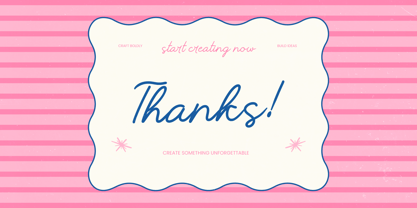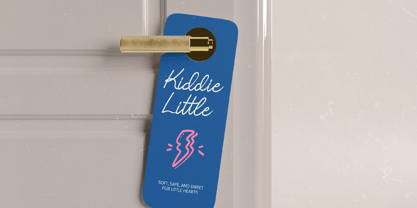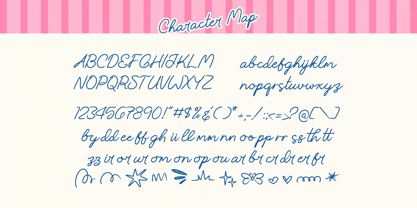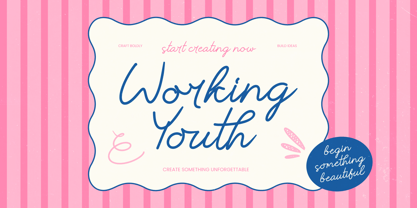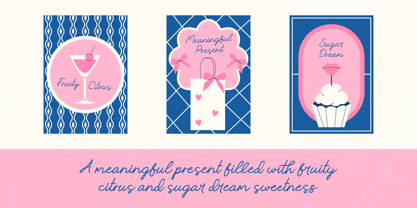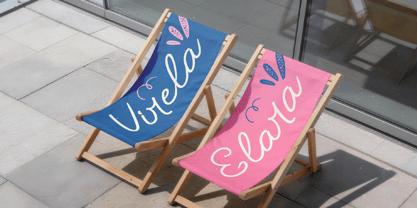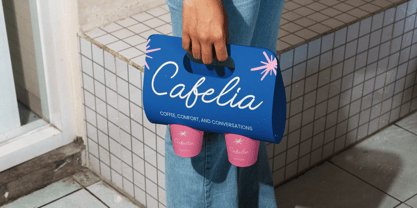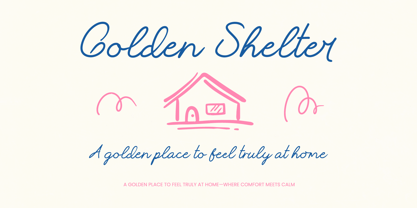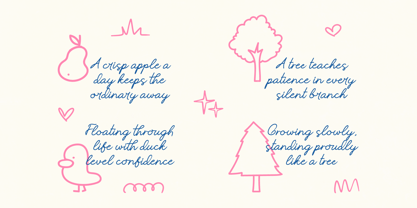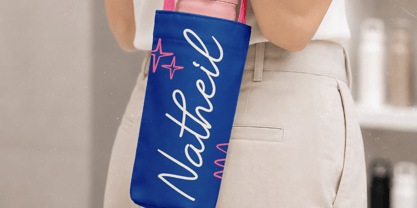
Working Youth
The Working Youth Font Family was designed by Heru Utama Putra and published by Stylishtype Studio. Working Youth contains 2 styles and family package options. More about this family
Elevate your creative vision with the charm of Working Youth - Cute Handwritten, a typeface designed to bring a warm, authentic aesthetic to every project. This hand-drawn script balances casual elegance with professional legibility, making it an essential asset for designers seeking a personal touch. Its fluid lines and organic strokes ensure that your messaging feels both approachable and uniquely crafted for the modern market.